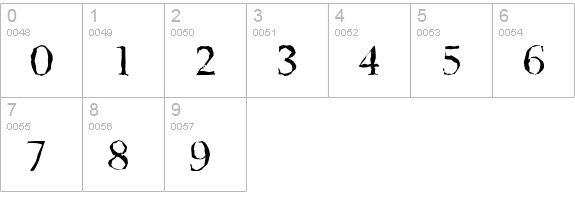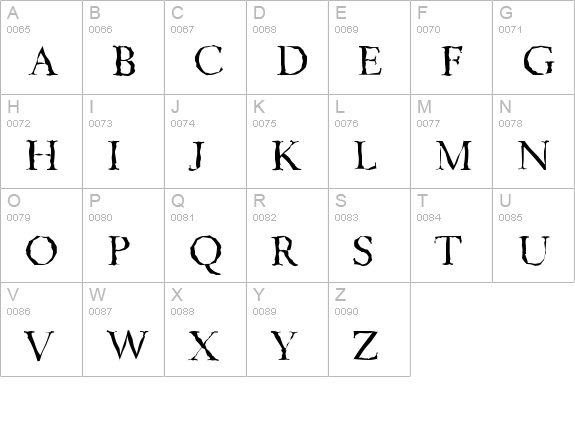
BelfastRandom-Regular Font Details
BelfastRandom-Regular is the standard, neutral variant in the BelfastRandom typeface family \xE2\x80\x94 well suited to general body text, paragraphs, and standard typographic work.
BelfastRandom-Regular font is a unique and modern typeface that exudes a sense of creativity and originality. Its playful and irregular letterforms give a fun and artistic touch to any design project. This font is perfect for adding a touch of whimsy to invitations, posters, logos, and more. The best part about BelfastRandom-Regular font is that it is completely free to download at FontsMarket.com. This means you can easily access this stylish and eye-catching font without any cost, making it a great choice for both personal and commercial use. Don't miss out on the opportunity to enhance your designs with this fantastic font - download BelfastRandom-Regular today!